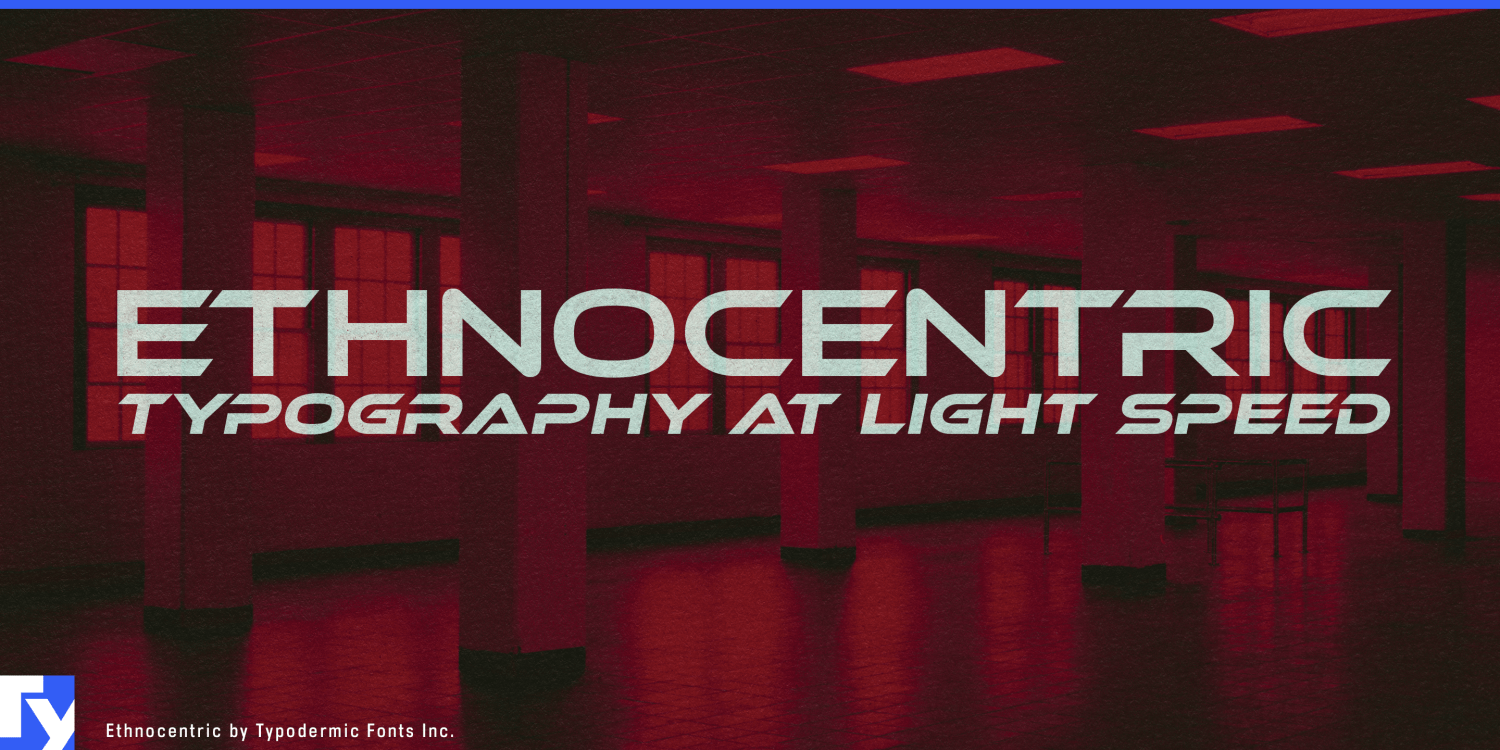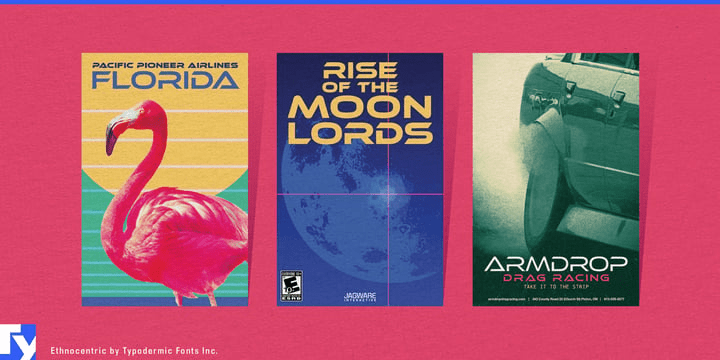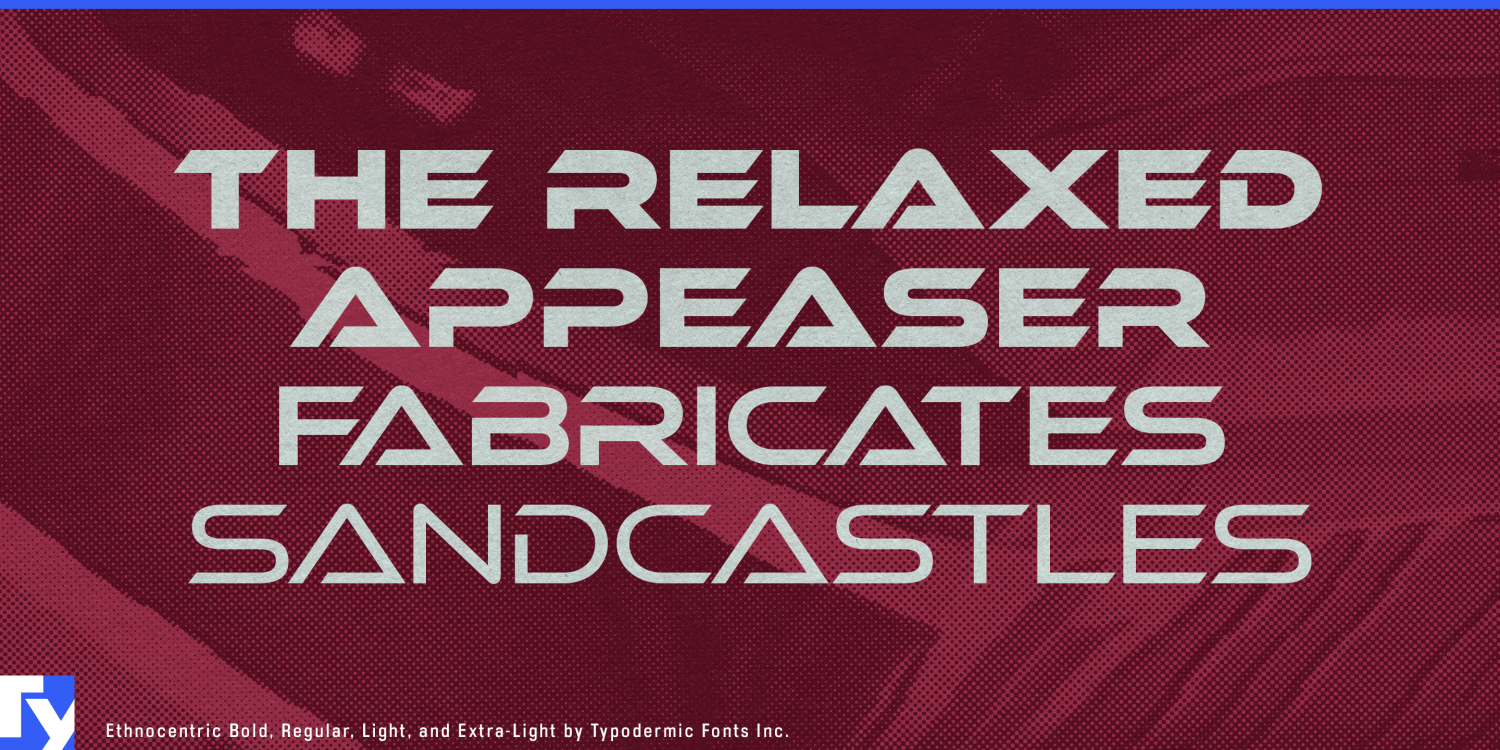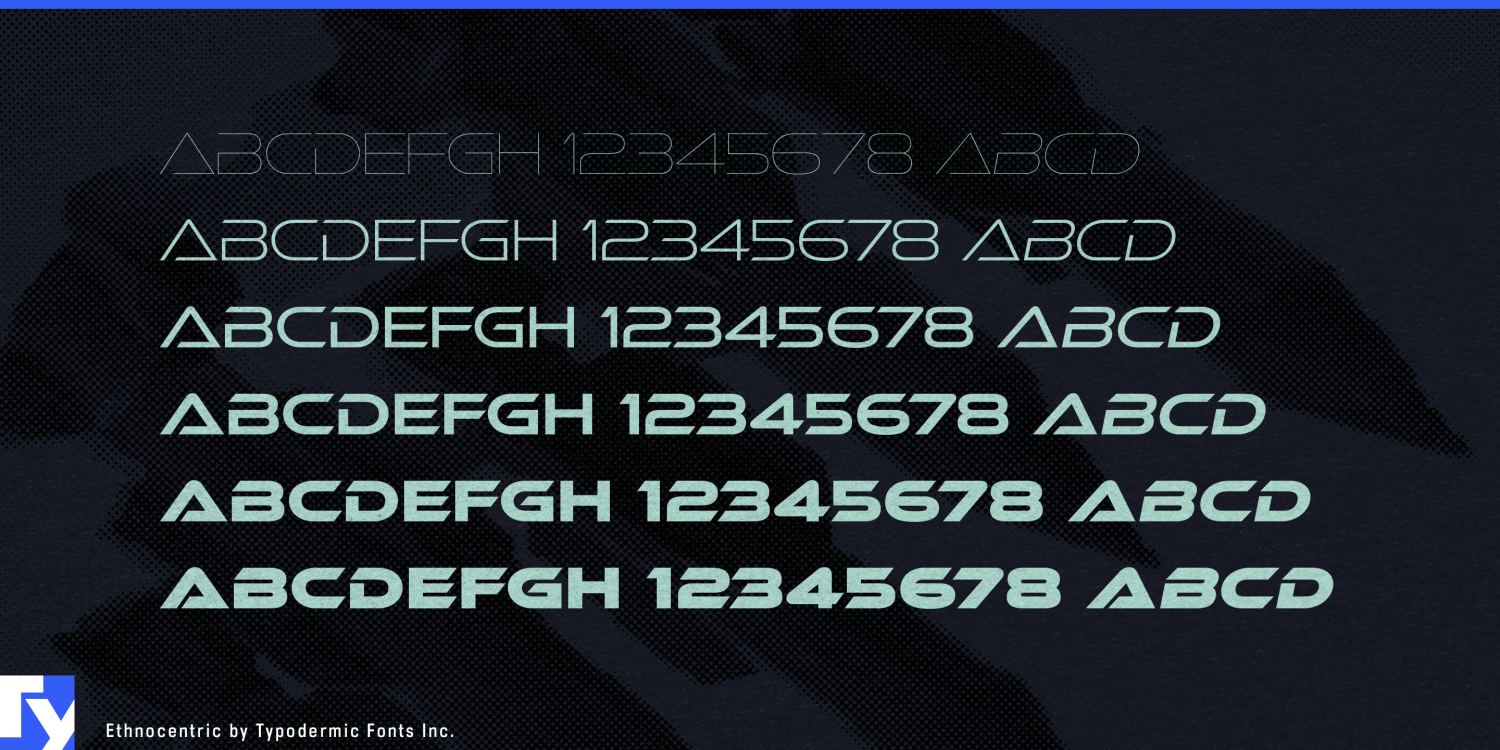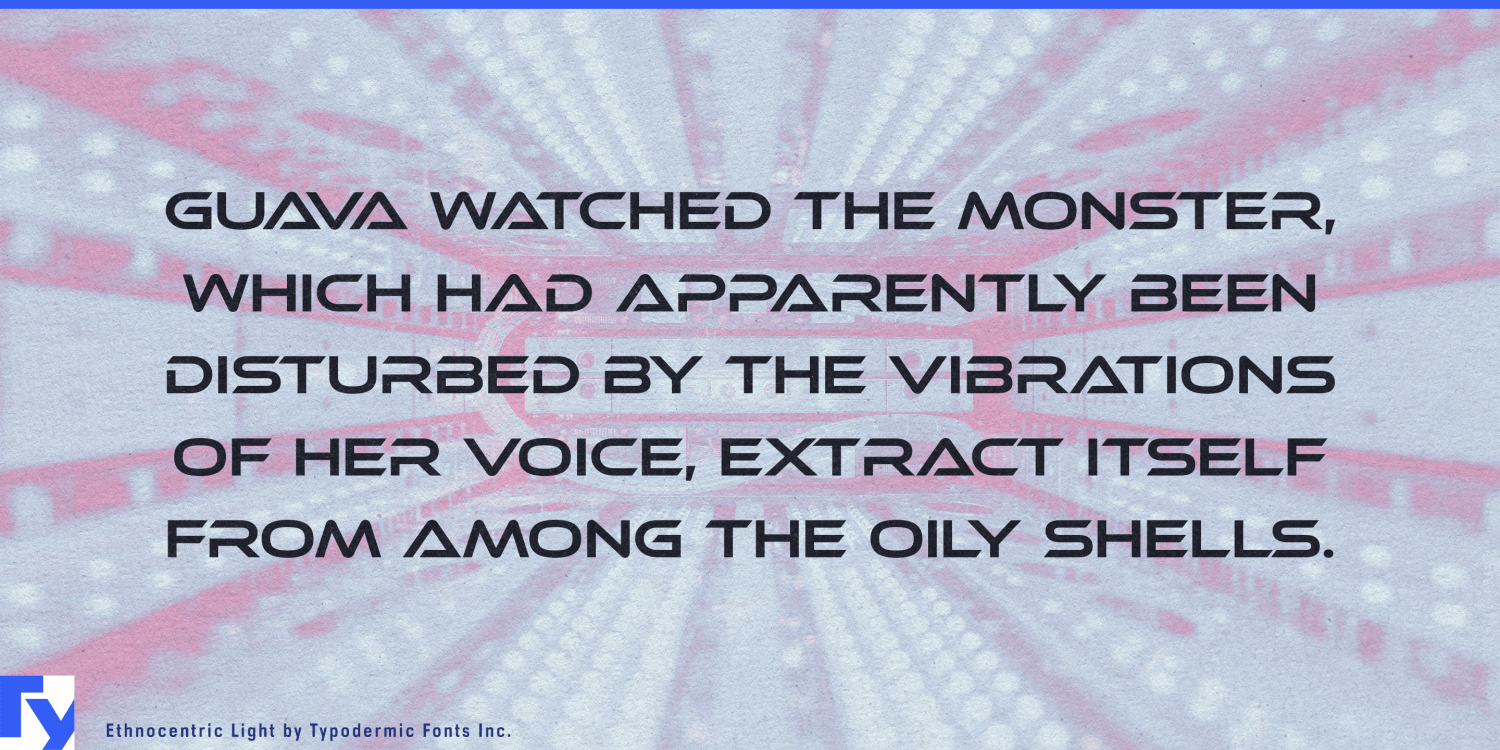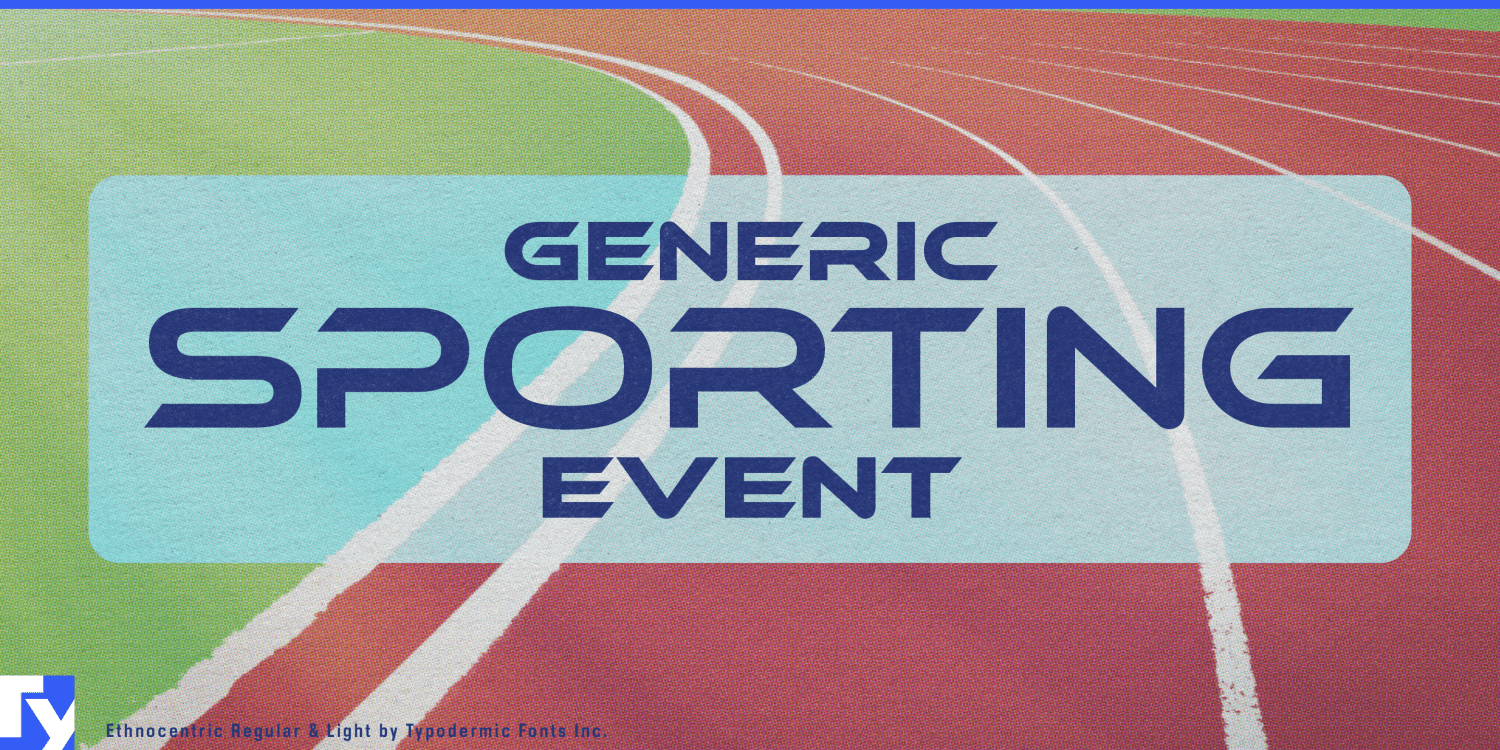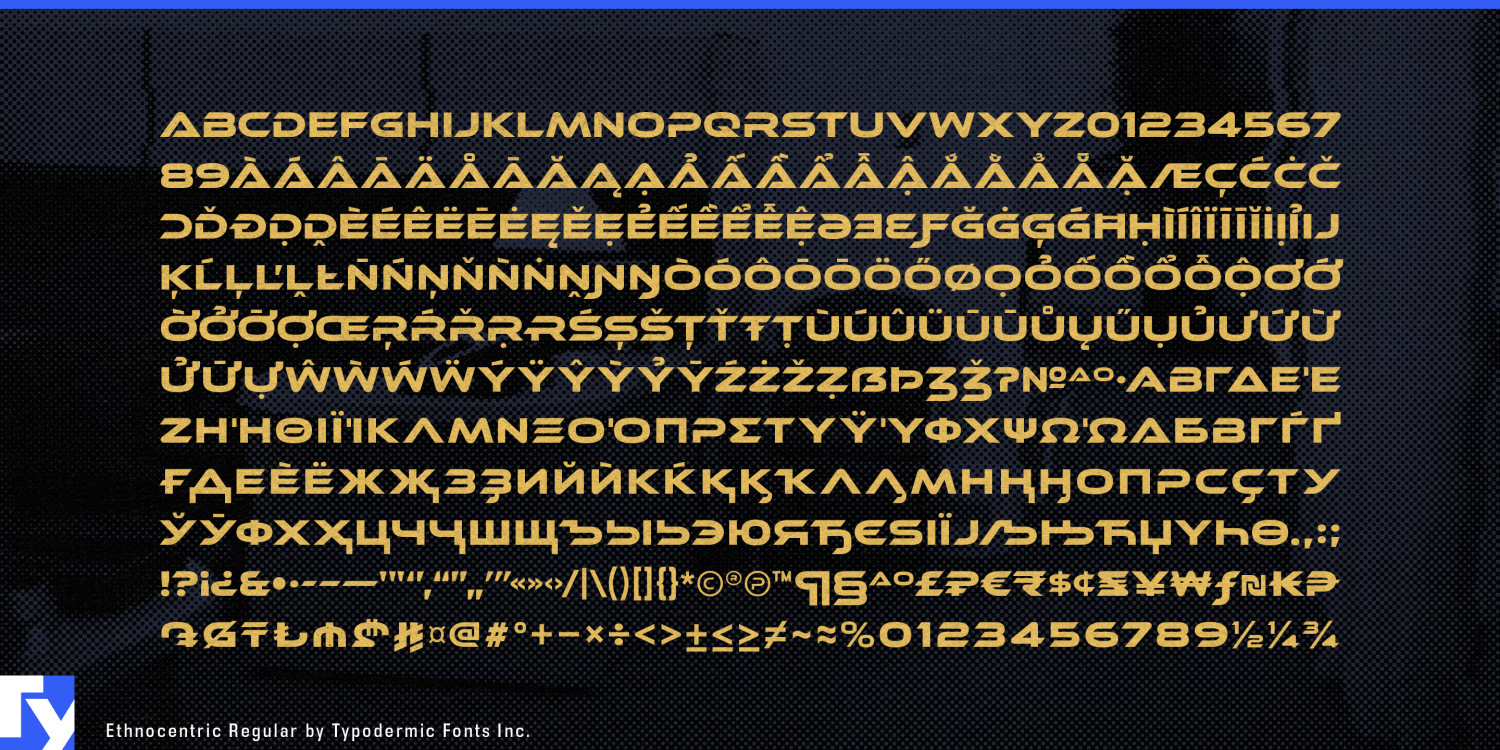
Ethnocentric
Buy NowImagine a typeface that doesn’t just hint at the future—it hurtles towards it. That’s Ethnocentric, a font that embodies the relentless pace of technological advancement and scientific discovery.
At first glance, Ethnocentric’s sleek silhouette catches the eye, but it’s the details that truly captivate. Outstretched pod forms create a sense of horizontal velocity, as if each letter is eager to break free from traditional constraints. Sharp diagonal cuts and precisely placed gaps disrupt expectations, injecting a sense of scientific intrigue into every word. This is not a typeface content to whisper—it proclaims innovation with every curve and angle. Whether you’re designing for a cutting-edge tech startup, a futuristic product line, or a forward-thinking publication, Ethnocentric provides the visual vocabulary to articulate your vision.
Versatility is key in the fast-paced world of design, and Ethnocentric delivers. With six weights and their italic counterparts, you have a full spectrum of options to fine-tune your message. From the whisper of technological promise in its lighter weights to the bold proclamation of breakthrough achievements in its heavier cuts, Ethnocentric adapts to your narrative. But Ethnocentric’s forward-thinking design doesn’t come at the cost of practical application. Its extensive character set spans a wide array of Latin-based European languages, ensuring your innovative message resonates from Silicon Valley to the tech hubs of Eastern Europe. Whether you’re localizing a user interface or crafting a multilingual campaign for the next big thing in tech, Ethnocentric speaks the language of progress fluently.
In a world where the next big innovation is always on the horizon, your typography should reflect that ceaseless drive forward. Ethnocentric doesn’t just keep pace with the future—it races ahead, challenging viewers to catch up. It’s more than a typeface; it’s a statement about embracing the cutting edge, about daring to push boundaries. So, when your design calls for something that breaks the mold, that speaks of tomorrow’s breakthroughs today, turn to Ethnocentric.